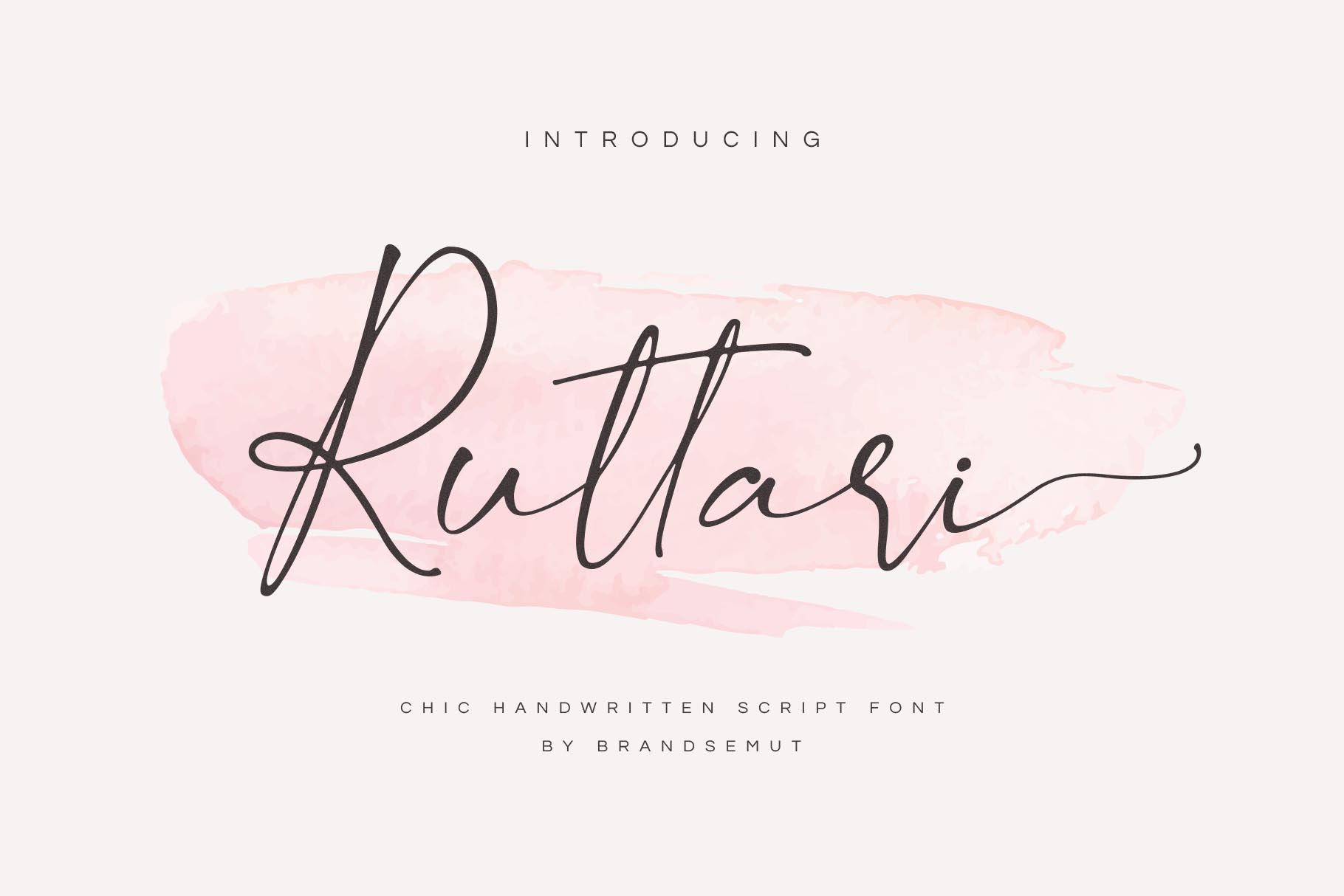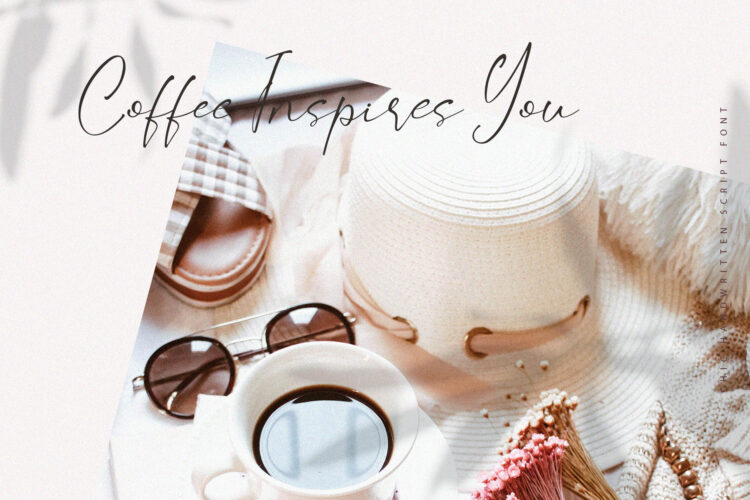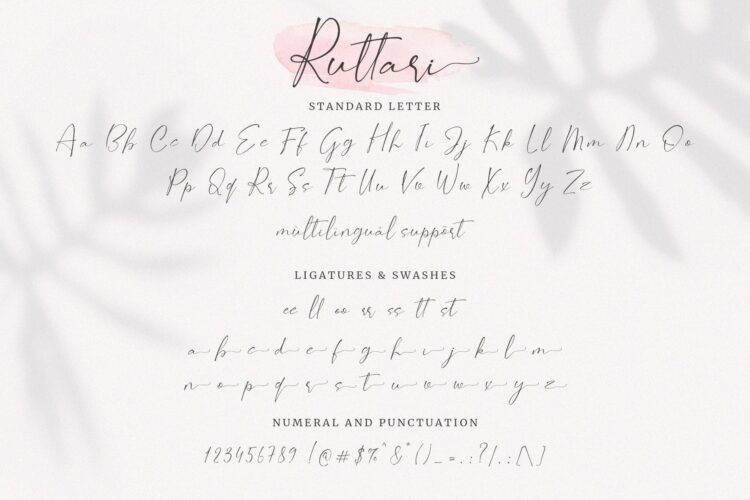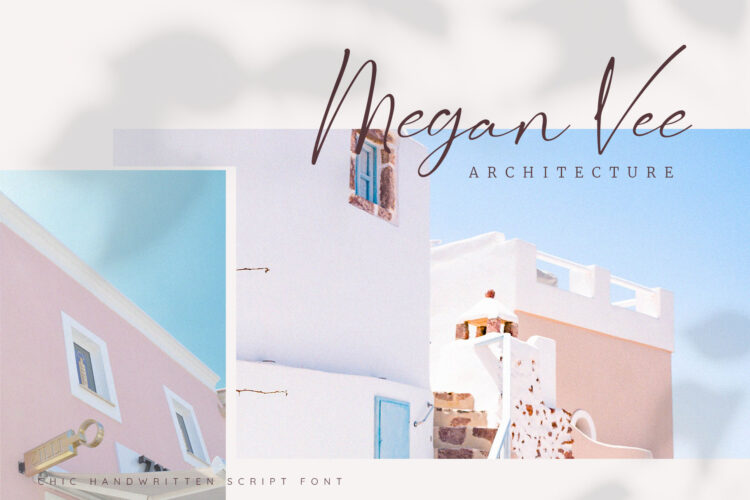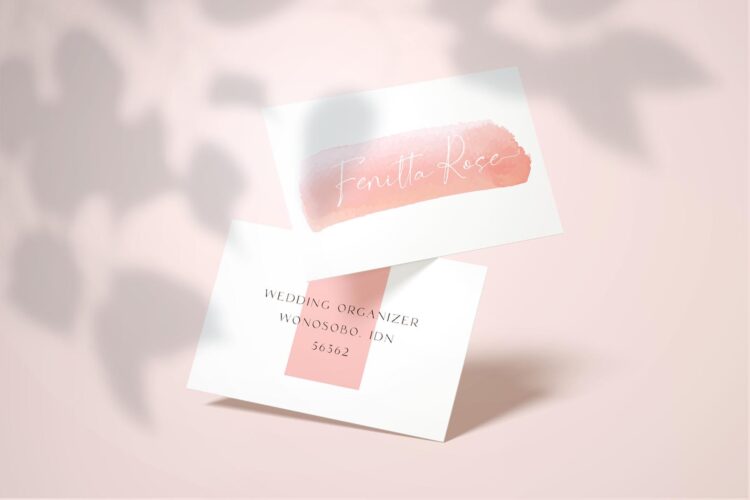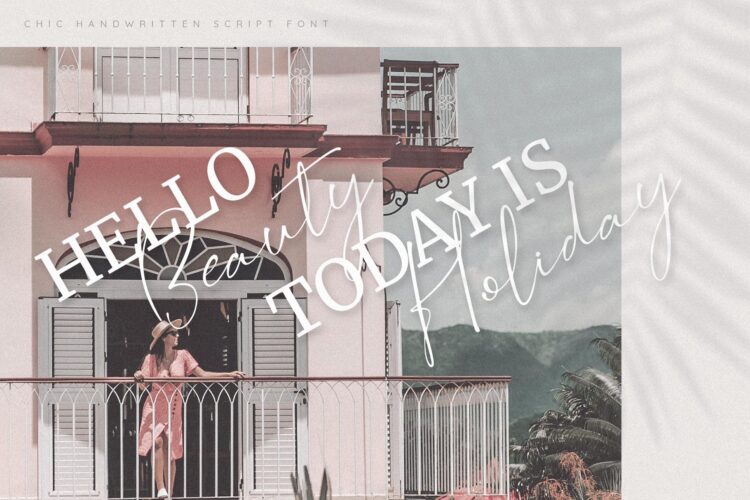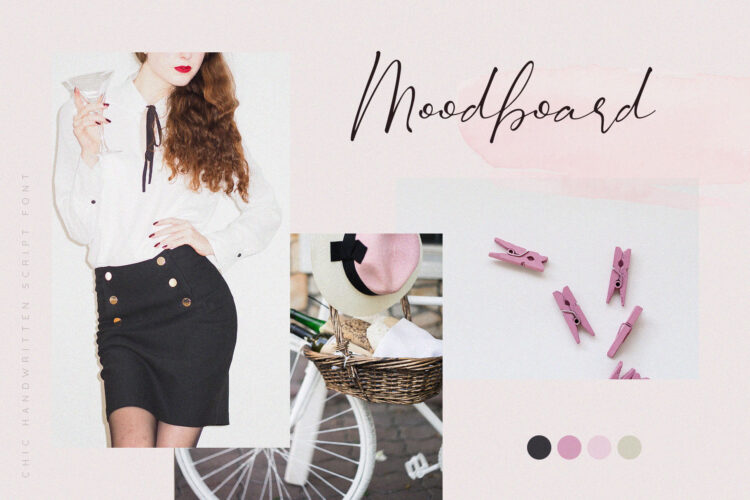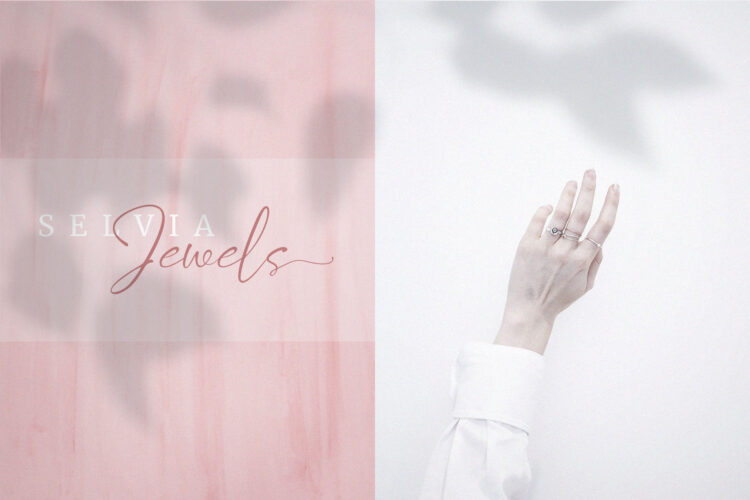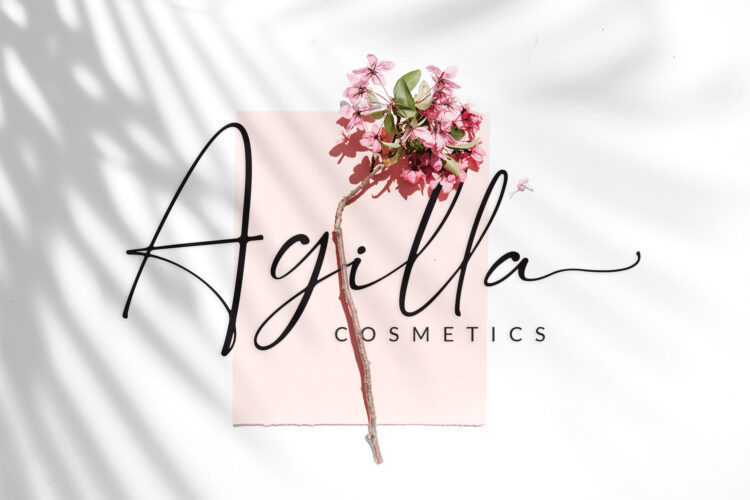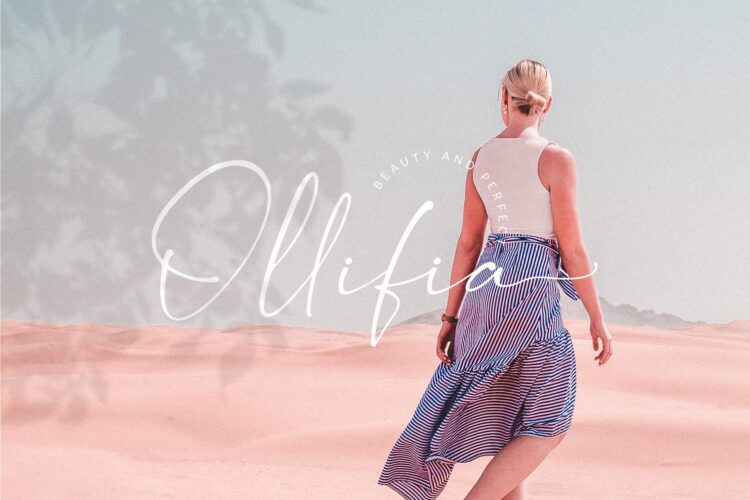
Hello, Introducing the new Ruttari Chic Handwritten Script Font!!! For those of you who are needing a touch of elegant, chic and modernity for your designs, this font was created for you!
Ruttari was built with OpenType features and includes ligatures, alternates, ending swashes, numbers, punctuation, and it also supports other languages.
Ruttari – Chic Handwritten Font